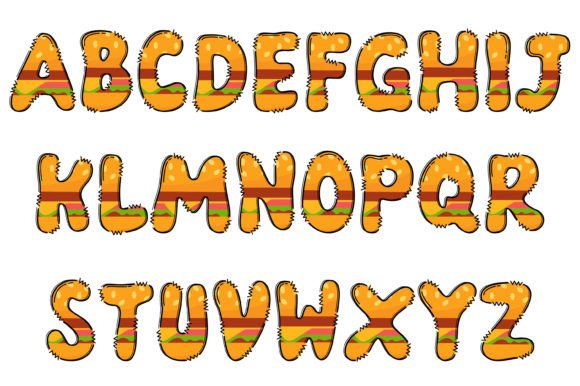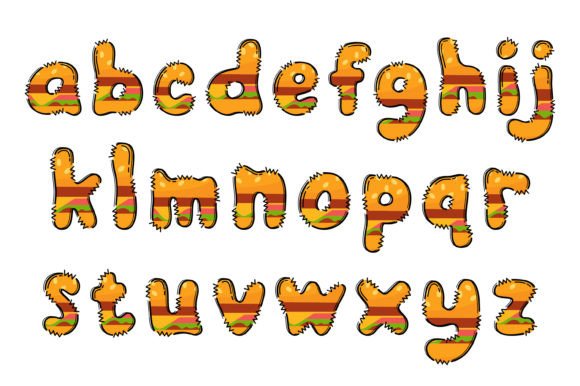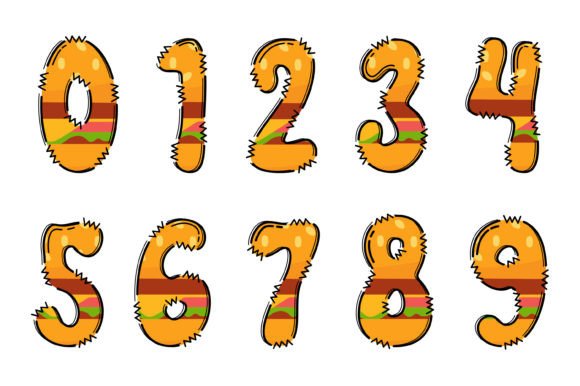
The Magic of Burgir Font: A Designer’s Delight
I’ll never forget the time I was working on a children’s book project, and my client asked me to create a custom illustration with a playful, hand-drawn feel. As I began to brainstorm, I realized that the font was just as crucial as the artwork itself. I wanted something that would transport young readers to a whimsical world, but I was struggling to find the perfect fit. That’s when I stumbled upon the Burgir Font, and it instantly became my go-to choice.
- ✨ The Burgir Font boasts a unique, hand-drawn charm that’s perfect for designs that require a playful touch.
- ✅ Its whimsical feel makes it an excellent choice for children’s books, posters, invitations, and greeting cards.
- 🌈 The font comes in a range of styles, allowing you to experiment with different looks and moods.
- 📚 It’s incredibly versatile and can be used for both digital and print projects.
While the Burgir Font is a fantastic choice, there are a few things to keep in mind:
- 🤔 Some users have reported that the font can be a bit tricky to read at smaller sizes, so it’s best to use it for headlines or larger text.
- ⚠️ The font’s playful nature might not be suitable for more formal or corporate designs.
The Designer Inspiration Behind Burgir Font
The Burgir Font was inspired by the creative works of renowned designers who sought to bring a touch of playfulness to the world of typography. Their goal was to craft a font that would inspire imagination and creativity in designers and readers alike. While the true story behind the font’s creation may be unknown, its impact on the design community is undeniable.
Q: What type of projects is the Burgir Font best suited for?
A: The Burgir Font is ideal for designs that require a playful, artistic feel, such as children’s books, posters, invitations, and greeting cards.